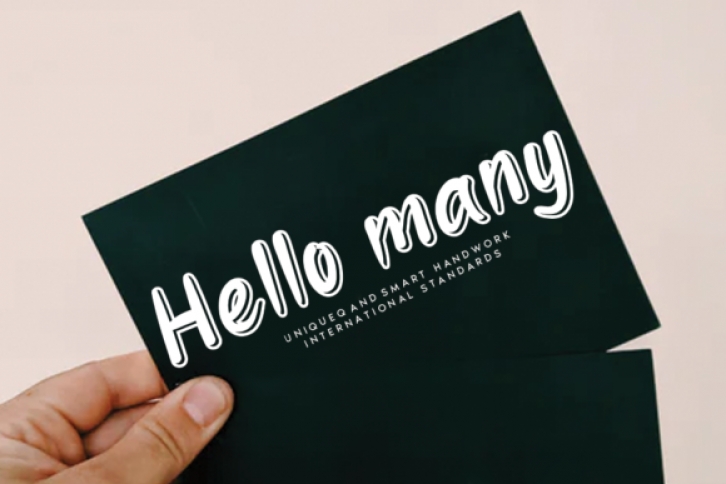
Hello Many is a flowing display font. Fall in love with its incredibly versatile style and use it to create gorgeous wedding invitations, beautiful stationary art, eye-catching social media posts, and much more!